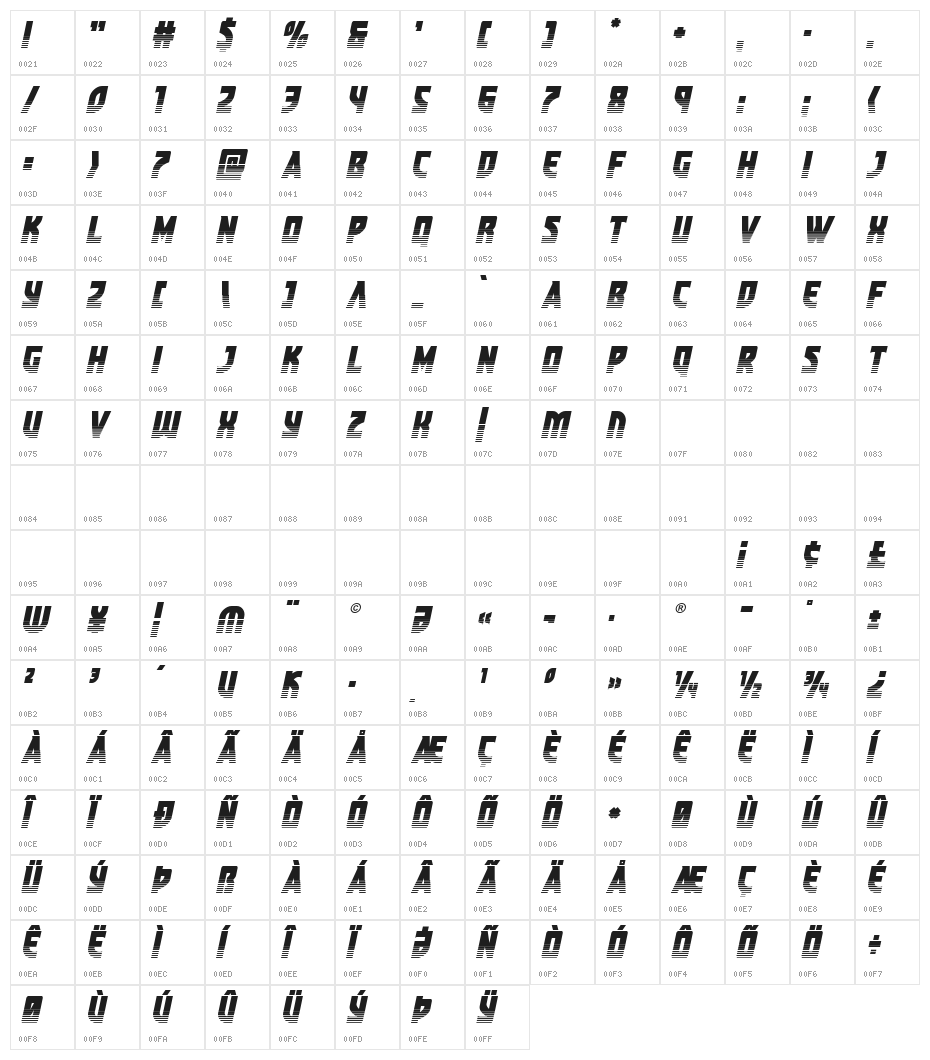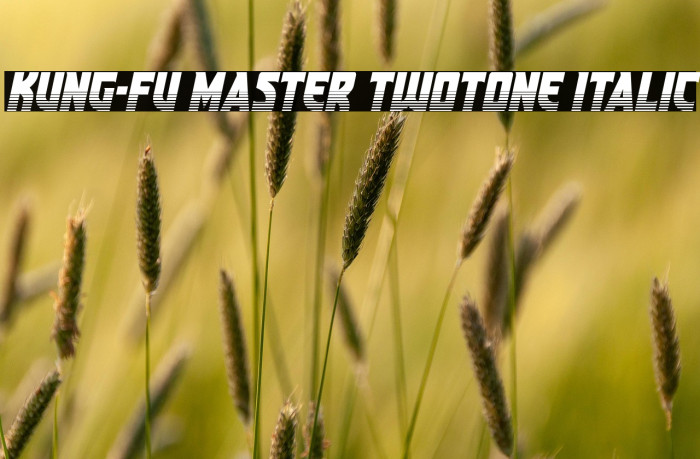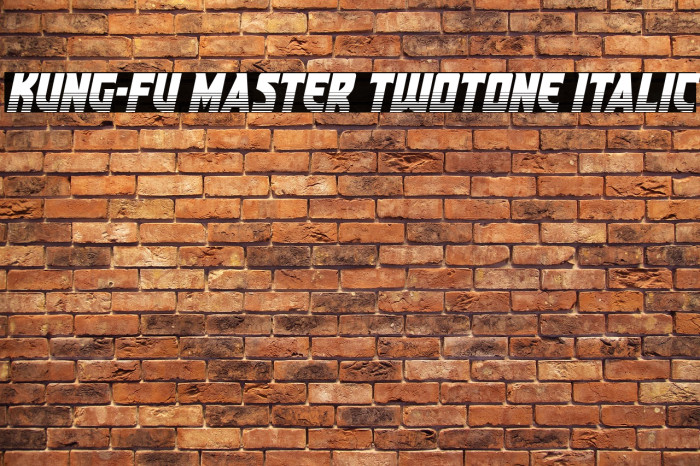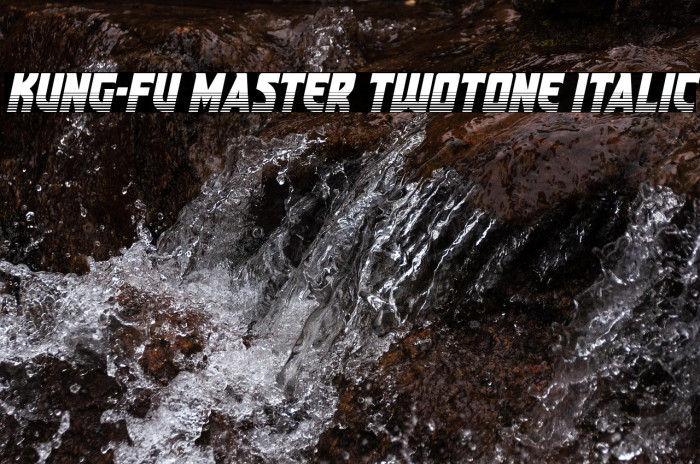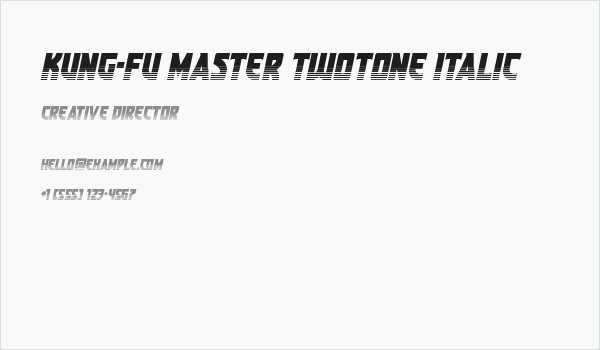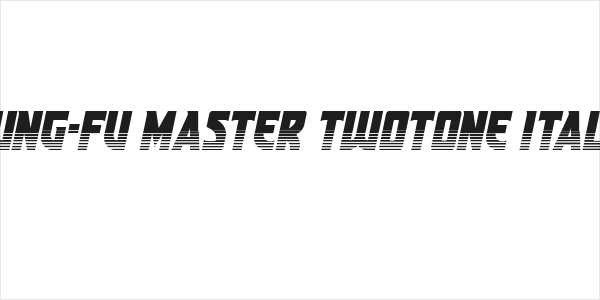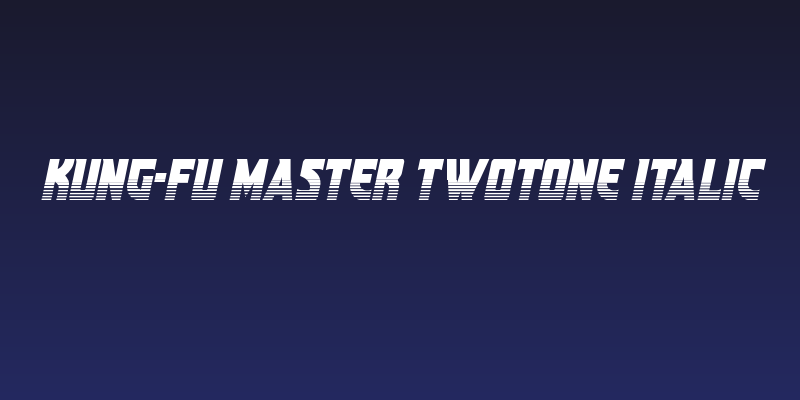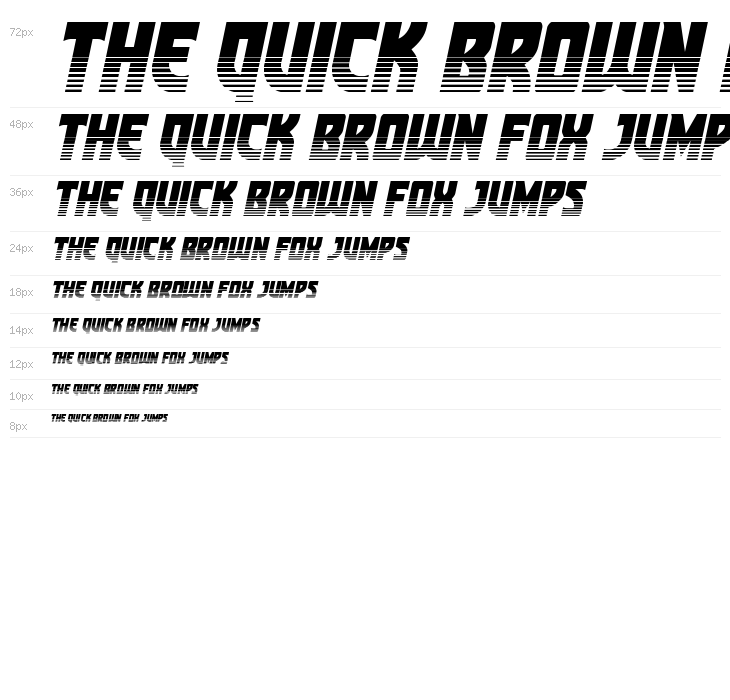
Kung-Fu Master Twotone Italic Font
Kung-Fu Master Twotone Italic Description
This font features a dynamic and energetic design with a two-tone striped pattern that creates a sense of movement and speed. The italicized style adds a slanted, forward-leaning appearance, enhancing its modern and sporty look. Each character is bold and impactful, with sharp angles and clean lines that contribute to its striking visual appeal. The uppercase letters are particularly prominent, making them ideal for attention-grabbing headlines or titles. The numbers and special characters maintain the same bold and dynamic style, ensuring consistency across all text elements.
| Proposed Projects | Ideal for sports branding, dynamic posters, video game titles, and any project requiring a bold, energetic typeface. |